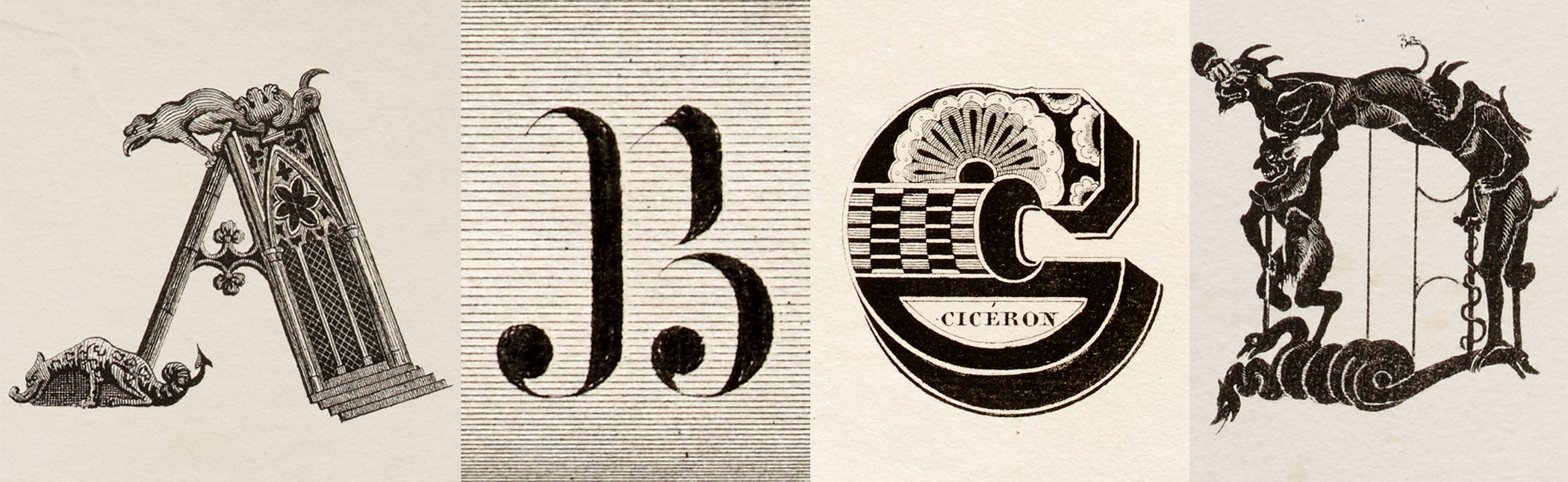
The Alphabet Lithographs of Jean Midolle | Letterform Archive
A 19th-century portfolio of fantastical lettering styles continues to fascinate designers, and is one of the most popular objects in our collection. Guest author Dan Reynolds highlights a few favorite plates.